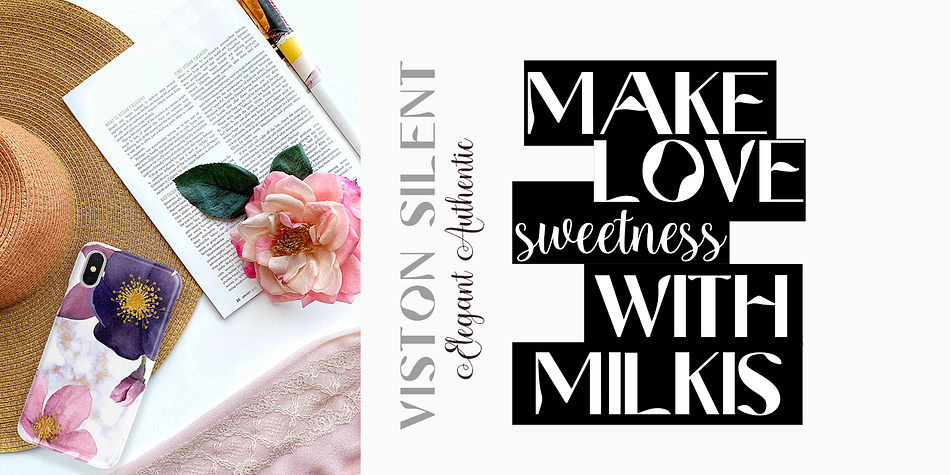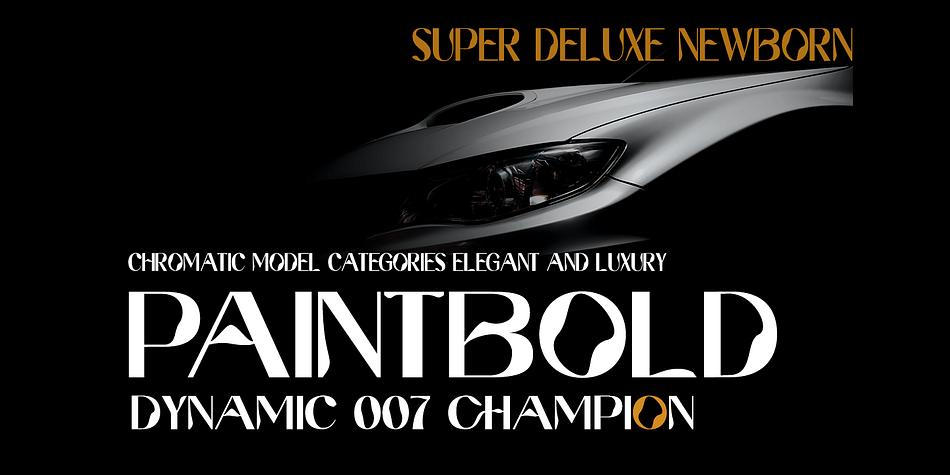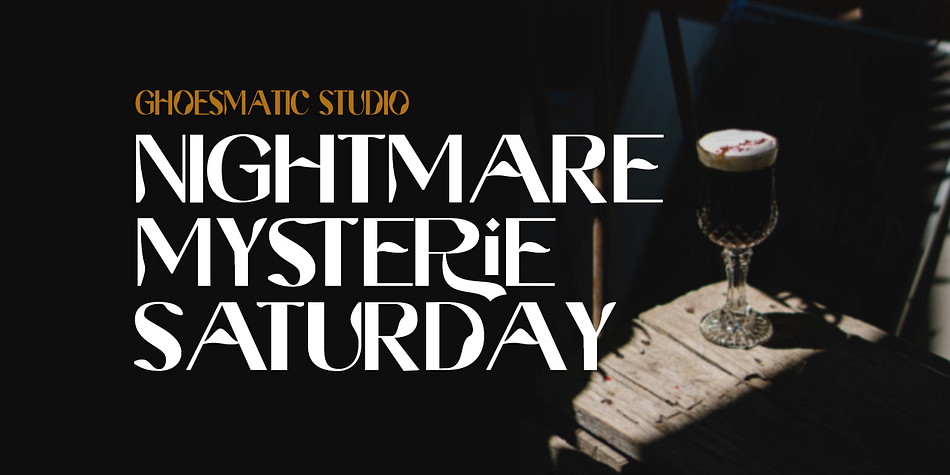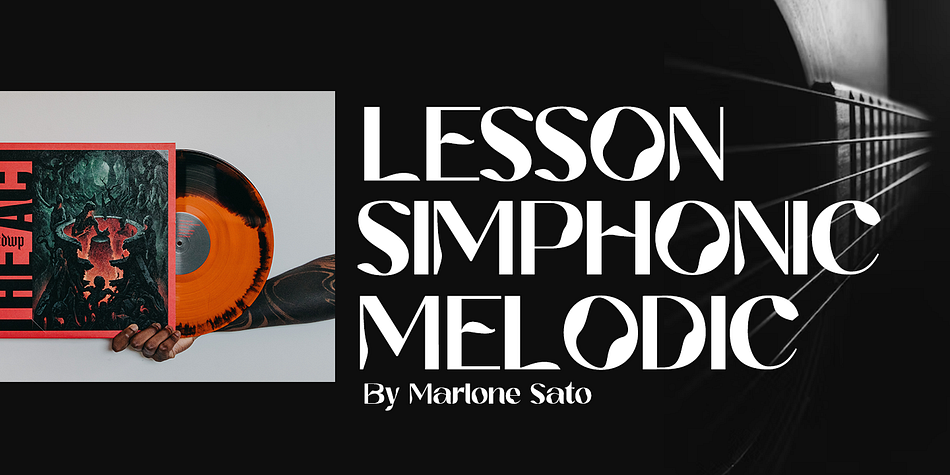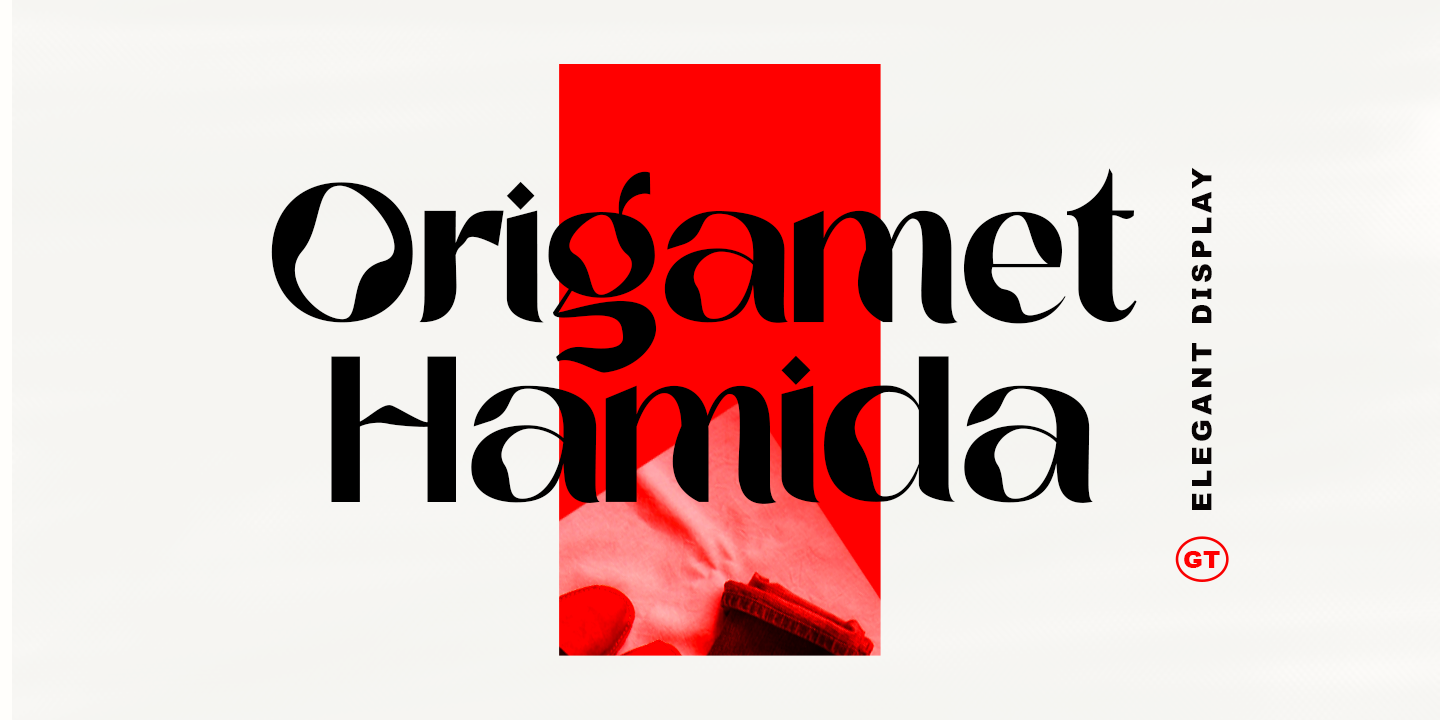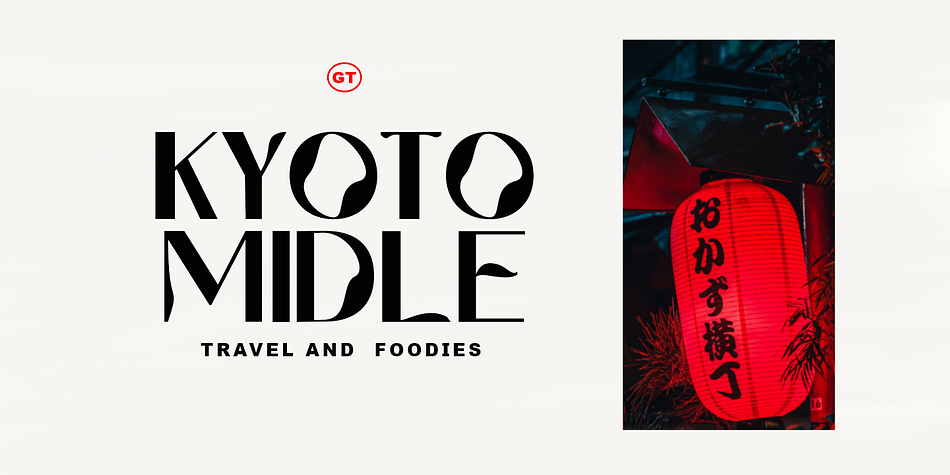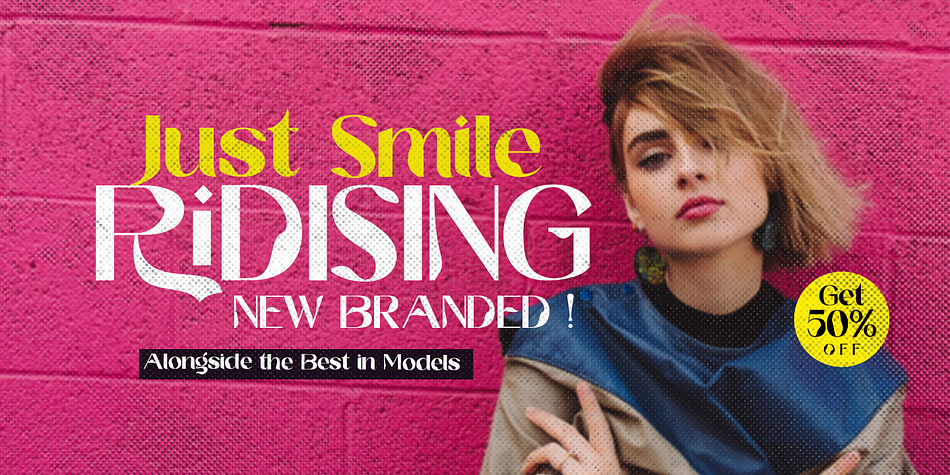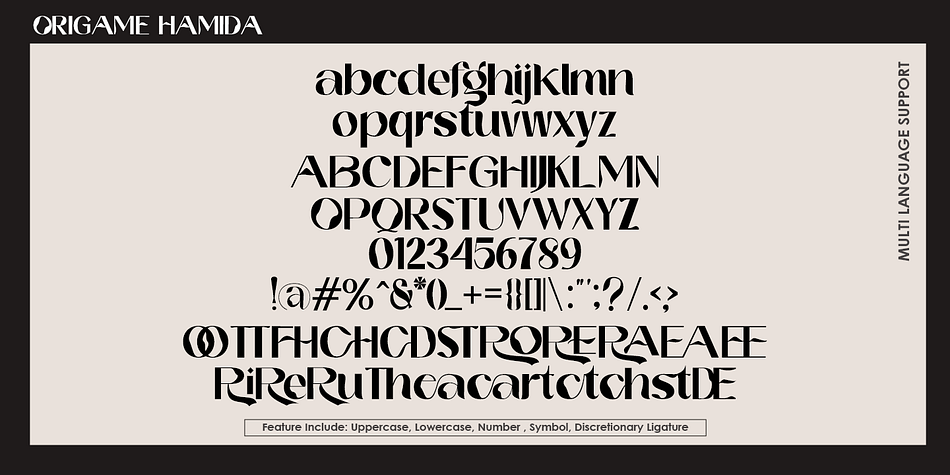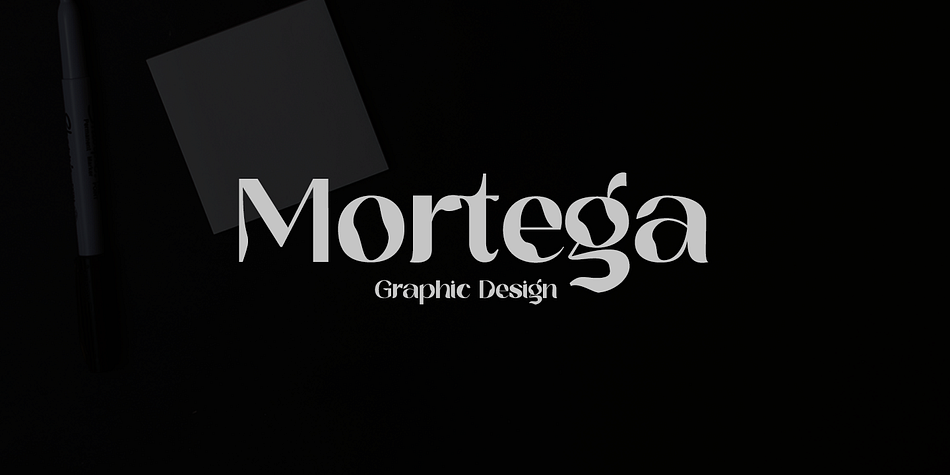
Origamet Hamida
Origamet Hamida is a display sans font family published by Gatype.
Hi Everyone, we are proud to present our new font. The new natural Hamida origami with a classy and modern style makes this font look elegant, natural, stylish.
Origamet Hamida is perfect for invitations, logos & branding, photography, advertising, watermarks, social media posts, product packaging, product designs, labels, wedding designs, stationery, special events or anything else needed to create a theme.
Origamet Hamida is built with OpenType features and includes initial and ending language styles, alternative characters for most lowercase letters, numbers, punctuation, alternatives, binders, and also supports other languages.